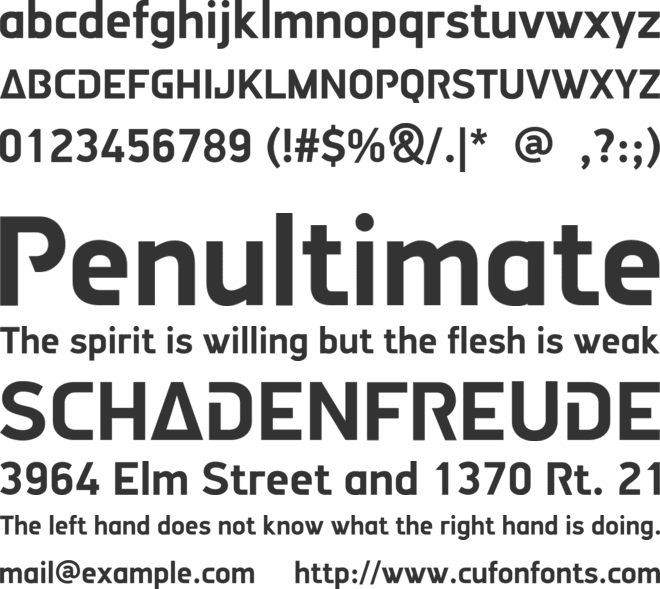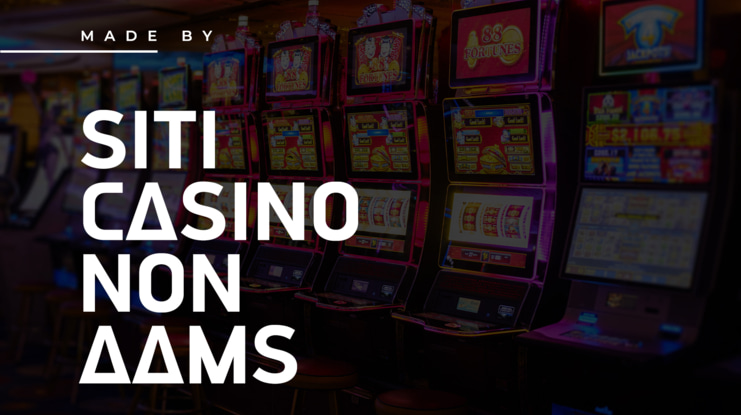
Siticasinononaams Font
Sadritsky
The Siticasinononaams Font is a sleek and fresh typeface suitable for all project types. It is exclusively designed by the https://siticasinononaams.com/ website team. Definitely, this font is more decorative in nature and it is well suited for website headings, posters, and other graphic materials.